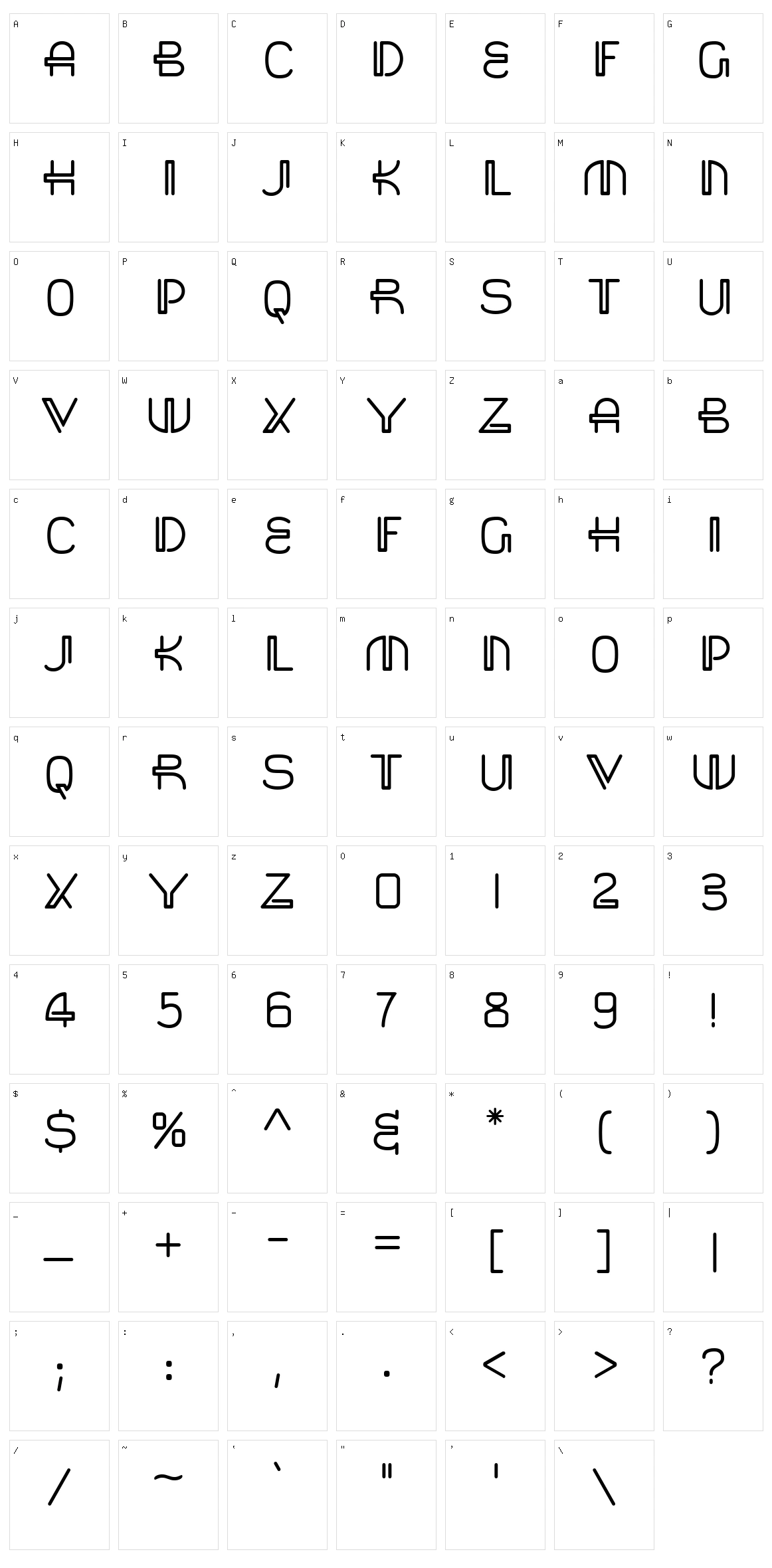
Saisa is based on an unnamed alphabet on page 61 of 101 Alphabets by
W. Ben. Hunt and Ed. C. Hunt published by The Bruce Publishing Company,
New York, 1958. The published design consisted of an uppercase alphabet
and numerals.